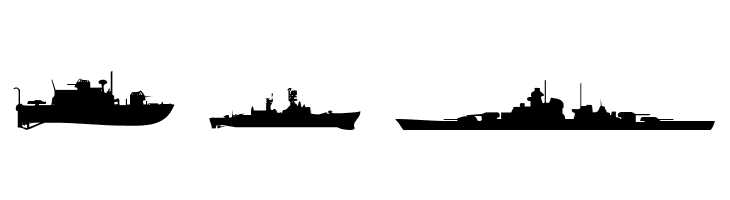
A retro collection of bold, geometric shapes and playful motifs inspired by 1960s design.
A distressed, grungy font with bold, textured characters.
Hand-drawn, doodle-style dingbat illustrations with a playful vibe.
A whimsical collection of cartoon character icons with bold outlines and playful expressions.
Decorative font made of US Navy ship silhouettes.
A whimsical decorative font with cartoon bug characters.
A playful pictogram font with clocks, watches, and time-themed illustrations.
A whimsical font featuring playful stick figure characters.
A decorative dingbat font with assorted drink and beverage illustrations.
A decorative icon set themed around beer and wine, featuring playful and illustrative graphics.
A whimsical set of pictogram characters with expressive designs.
Cartoon emoticon dingbat font with diverse facial expressions.
Hand-drawn dingbat font with tea and kitchen-themed illustrations.
A decorative collection of book-themed illustrations.
A playful, drink-themed decorative font with bold, cartoonish illustrations.
A quirky, illustrated display font using prize-themed icons as characters.
A collection of bold, 1980s-themed icons and graphics.
Retro 1960s-inspired dingbat font with geometric and decorative motifs.
A bold decorative icon font with food and dining motifs.
A decorative display font made from scanned object silhouettes.
A decorative set of bar and beverage-themed icons.
Summer and beach-themed pictogram dingbat font.
A whimsical collection of illustrated faces with unique expressions.
A collection of decorative skull icons with a punk aesthetic.
A playful set of cartoonish face icons within squares.